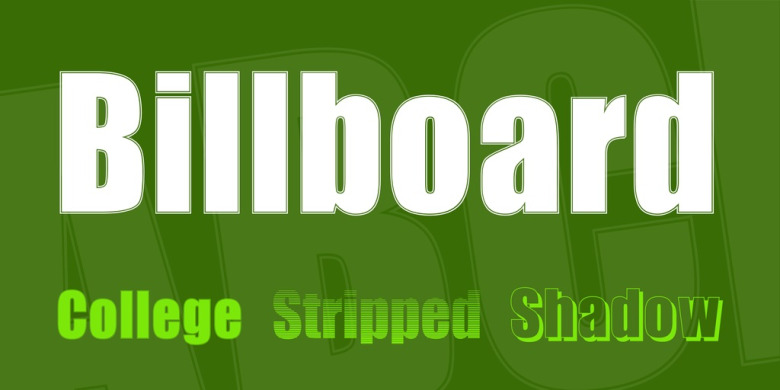
Billboard Font Family
Billboard Font
Billboard Font bilboard is a sleek and retro display font. This font is free for personal and commercial use and we are excited to have the honour of bringing it to you. All caps and lowercase included, along with a few figures entirely for free.
Billboard Font Family